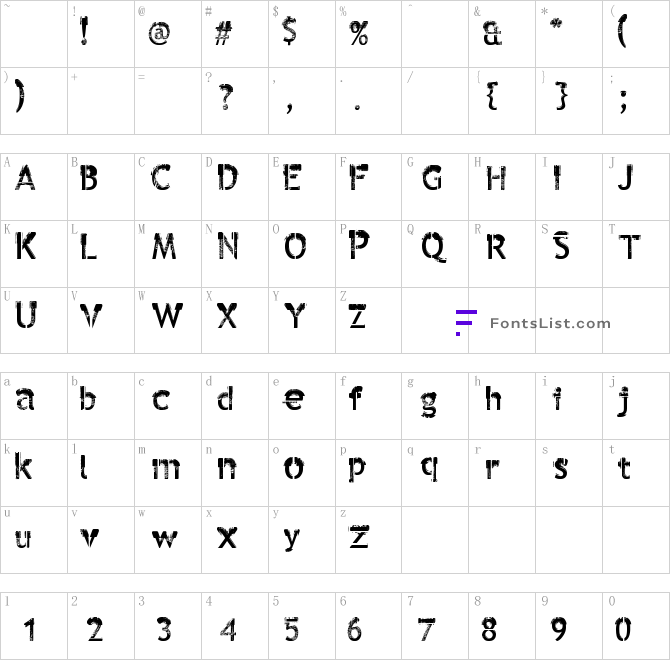
- Font Name:anthem
anthem.ttf is a very beautiful artistic font, anthem.ttf is widely used in the design and printing of various books and pictures,anthem.ttf has a strong visual impact,anthem.ttf is a commonly used font in newspapers, magazines and books, and is used in posters, e-commerce Poster design, store design, logo design, font design and other fields.anthem.